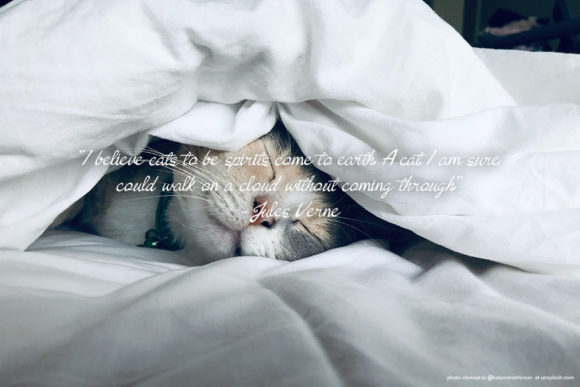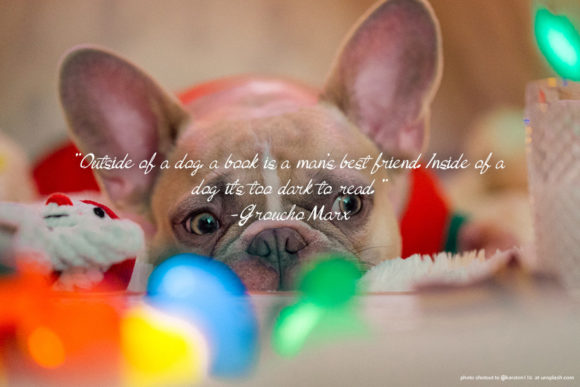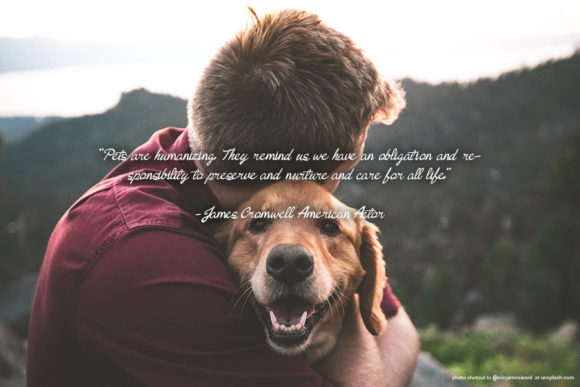
Introduction to Cute Curly Font
As designers, we’ve all been there – staring at a blank canvas, trying to bring a creative project to life. For me, it was a simple social media post for a friend’s birthday. I wanted something that would make her feel special, something that would capture her bubbly personality. And then, I stumbled upon the Cute Curly Font. Its charming, handwritten style immediately caught my eye, and I knew I had found the perfect design resource.
But what makes the Cute Curly Font so valuable for designers like us? For one, its authentic feel makes it perfect for projects that require a touch of whimsy and personality. Whether it’s a wedding invitation, a greeting card, or even a social media post, this font is sure to add a dash of charm. And with its transparent background, it’s easy to use as a design element in any project. Plus, it’s available for free download, making it a high-quality resource that won’t break the bank.
Key Features of Cute Curly Font
- High-quality design: Cute Curly Font is a premium design resource perfect for creative projects that require a playful and whimsical touch.
- Transparent background: The font’s transparent background allows for easy layering and customization in various design applications.
- Unique characteristics: Cute Curly Font features a distinctive, hand-drawn style with intricate curls and swirls that add a touch of personality to any design.
- Size and resolution: The font comes in a single size, but it can be scaled to various sizes without losing its quality or clarity, making it ideal for use in both small and large designs.
- Perfect for creative projects: Cute Curly Font is an excellent choice for designers working on children’s books, greeting cards, party invitations, and other creative projects that require a fun and playful touch.
Honest Review: Cute Curly Font
I recently had the chance to work with the Cute Curly Font, and I must say it’s been a delightful experience. As a designer, I’m always on the lookout for high-quality design resources that can elevate my creative projects. The Cute Curly Font is a great addition to my collection.
- ✨ The font is incredibly versatile and can be used for a wide range of creative projects, from children’s books to wedding invitations.
- ✨ The high-quality design ensures that the font looks great even at large sizes.
- ✨ The transparent background option gives me the flexibility to use the font on any background.
- ⚠️ The font doesn’t come with a complete character set, which can be a limitation for designers who need to use the font for professional purposes.
Overall, I’m impressed with the Cute Curly Font. It’s a great design resource that can add a touch of whimsy to any project. While it has some limitations, the benefits far outweigh the drawbacks. I would definitely recommend it to fellow designers looking for a high-quality, versatile font.
Tips for Getting the Most Out of Cute Curly Font
To get the most out of the Cute Curly Font, use it for creative projects that require a playful and whimsical touch. You can also use it for designs that require a transparent background or high-quality text. Experiment with different font sizes and colors to create visually appealing designs.